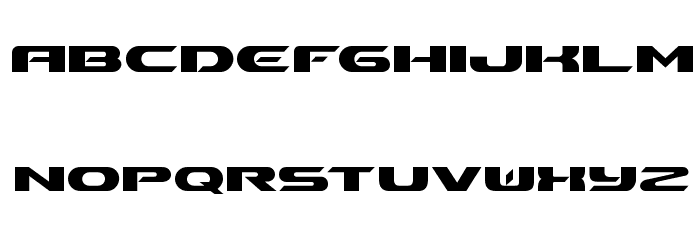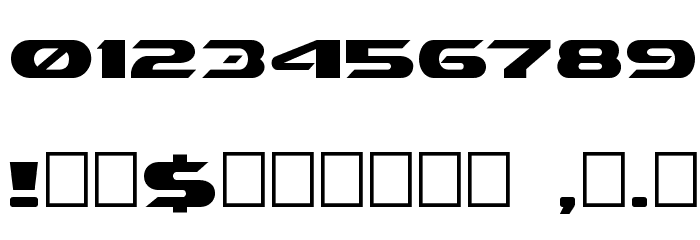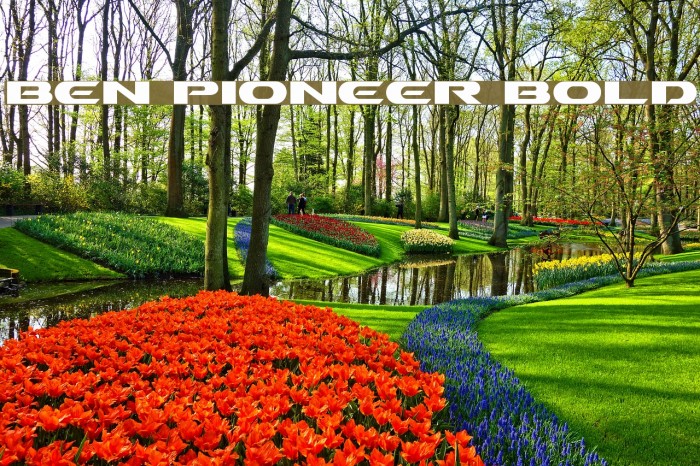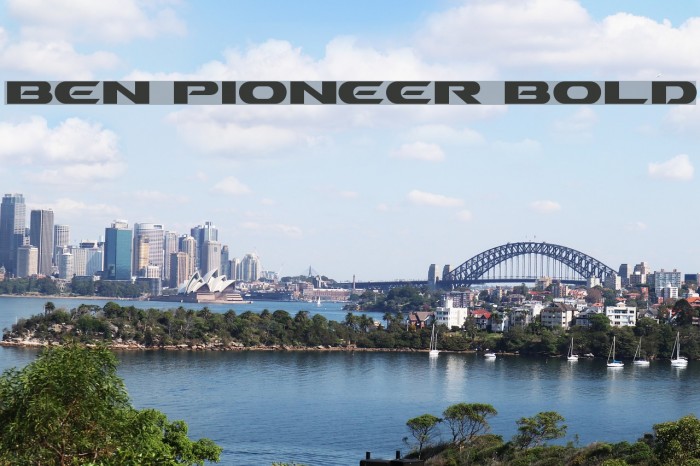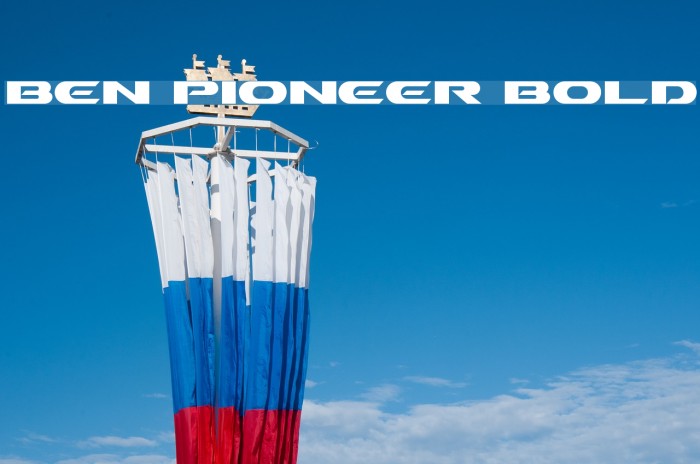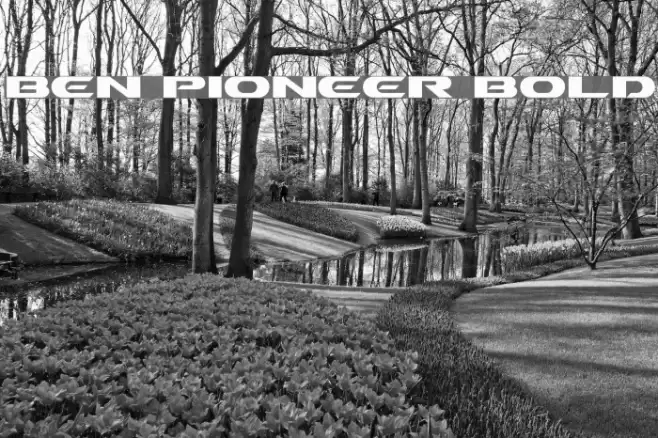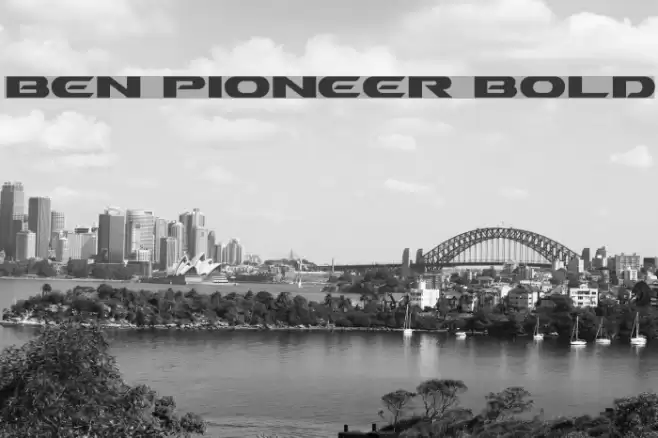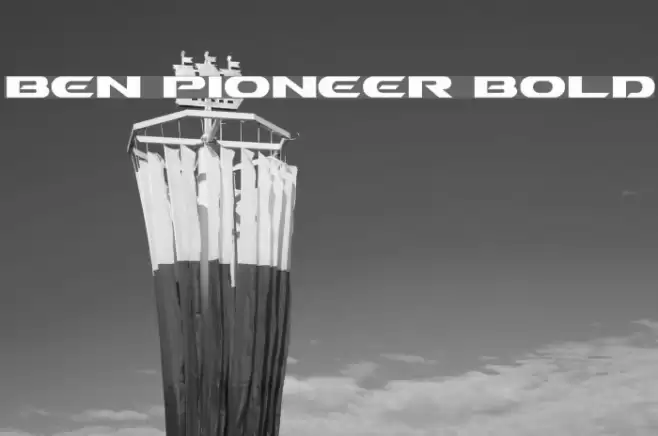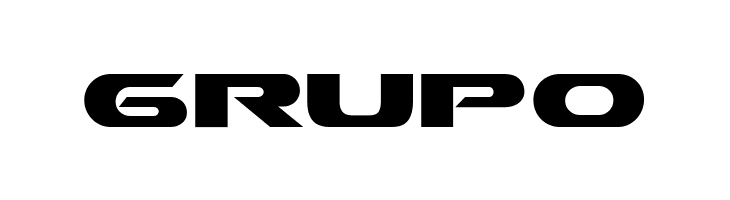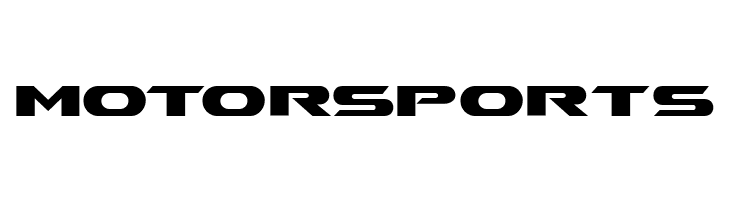
Ben Pioneer Bold Font
This font features a bold and futuristic design with sharp, angular edges and a strong geometric structure. The characters are wide and have a distinct, blocky appearance, making them highly visible and impactful. The uppercase letters are particularly striking, with a consistent height and width that create a uniform look. The numbers and special characters maintain the same bold style, ensuring consistency across all text elements. This font is ideal for projects that require a modern and assertive aesthetic.
A bold, futuristic font with sharp, angular edges and a geometric structure.
- Proposed Projects: Ideal for sci-fi themed designs, technology branding, video game titles, and modern posters.
- Width: Expanded